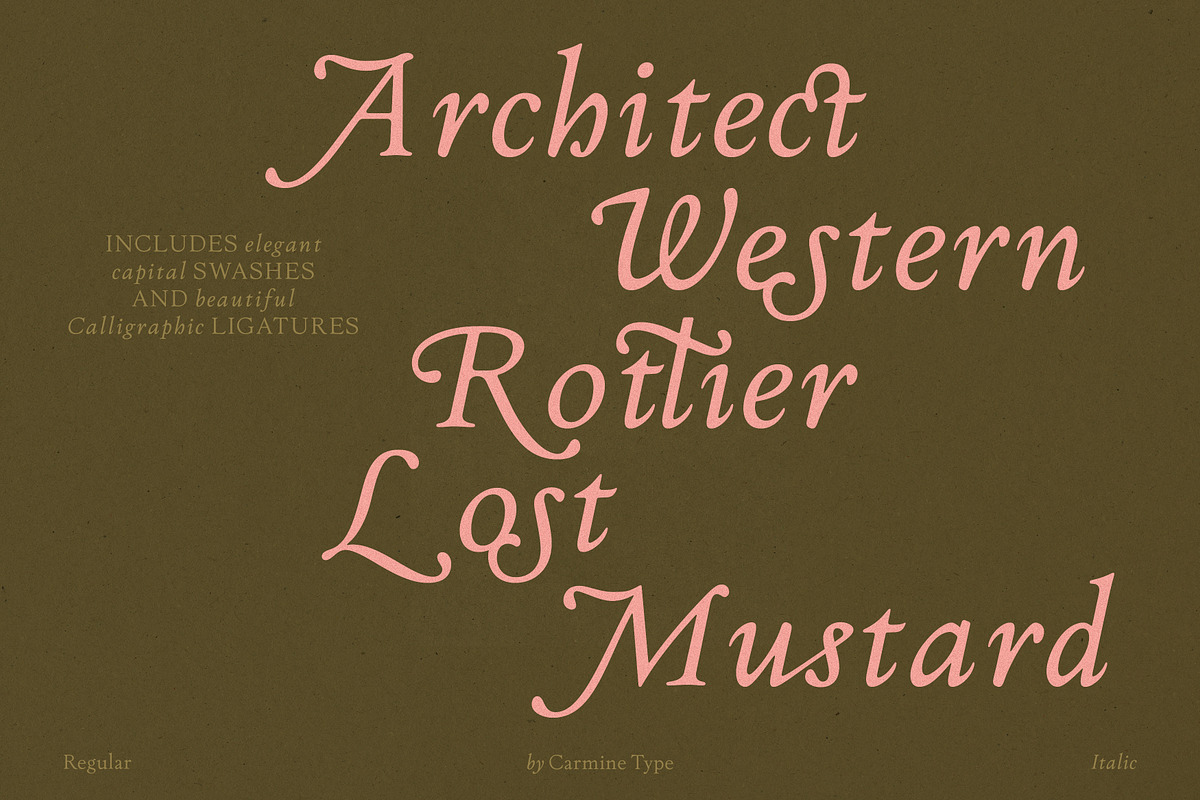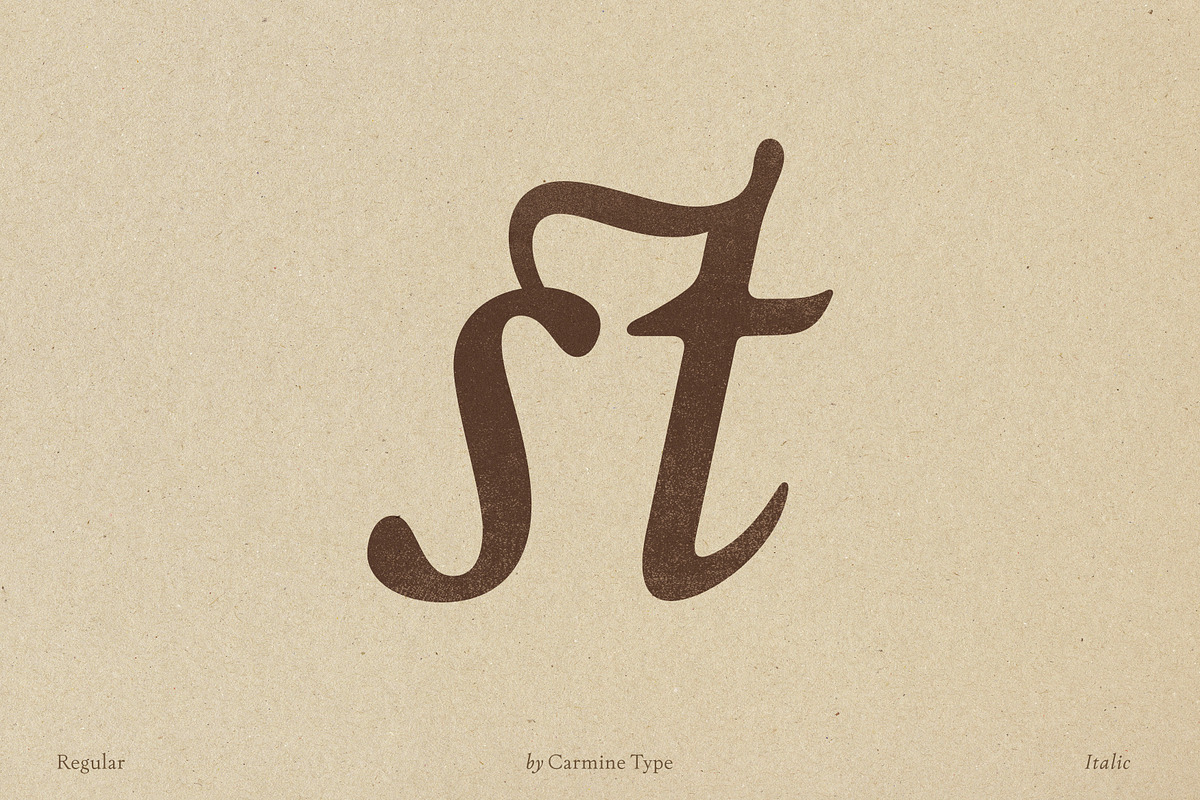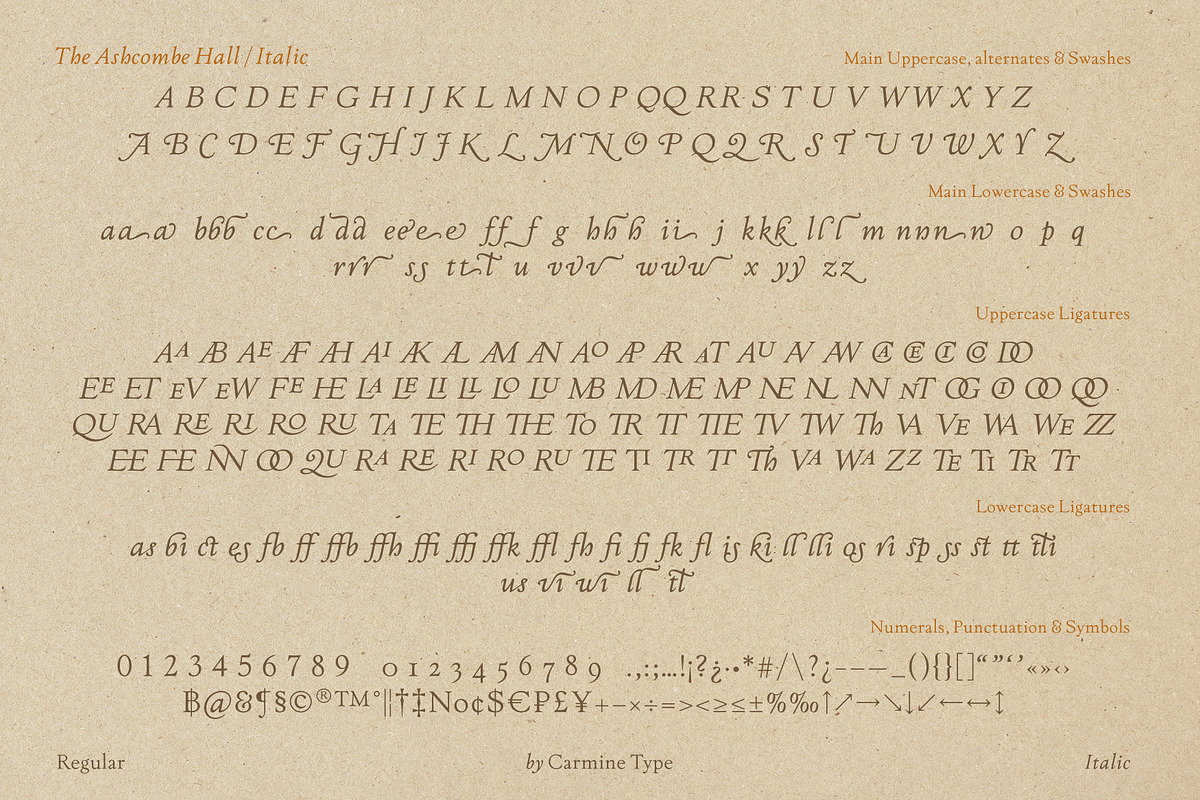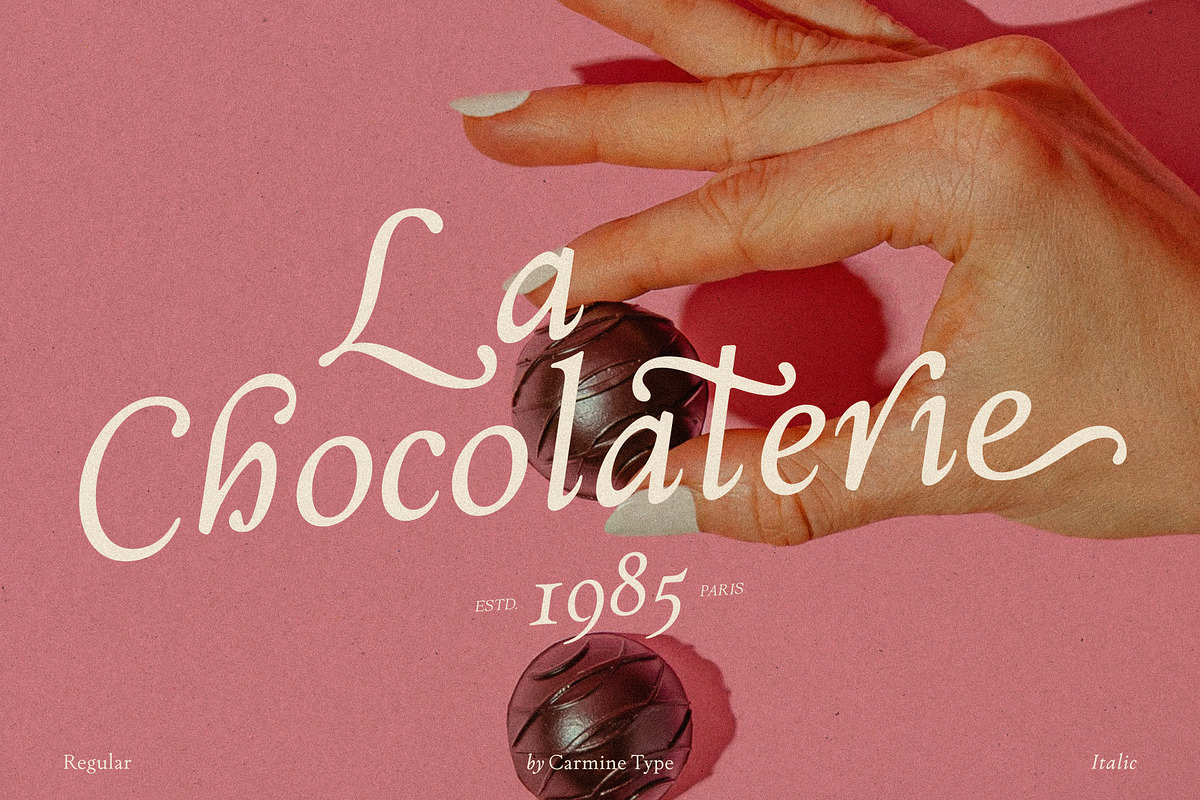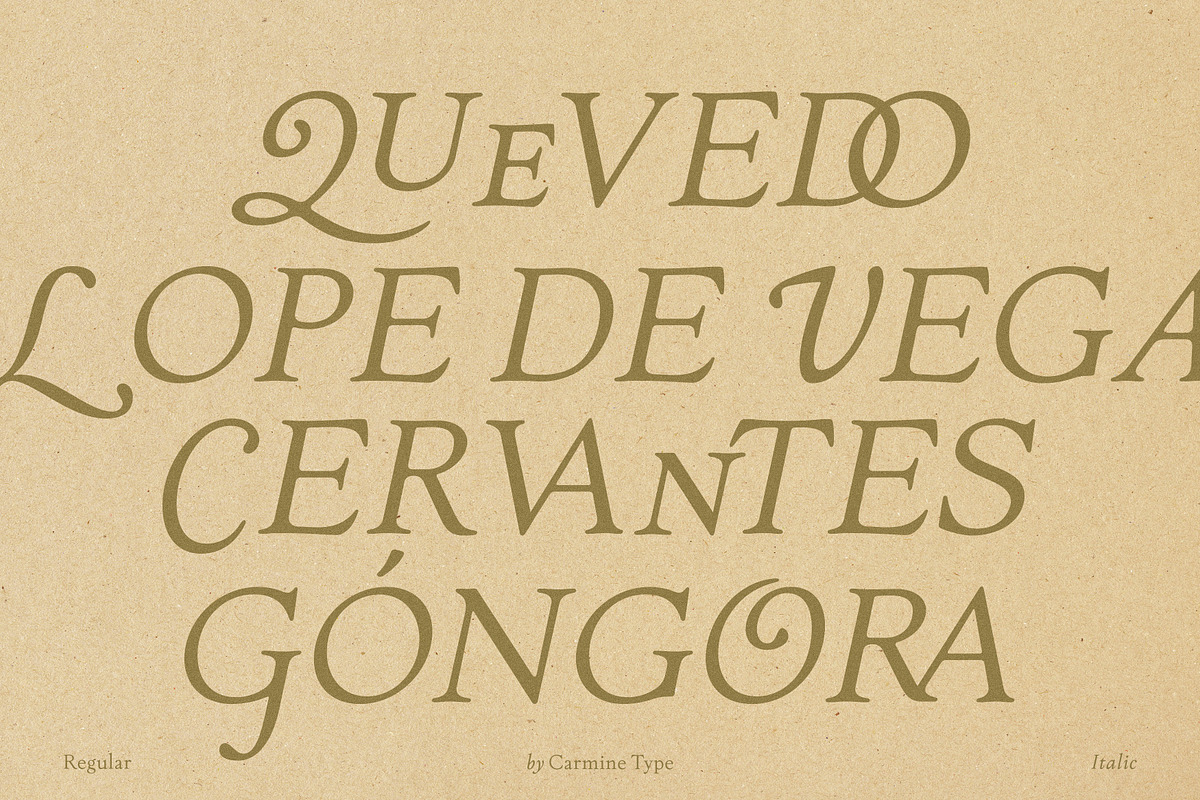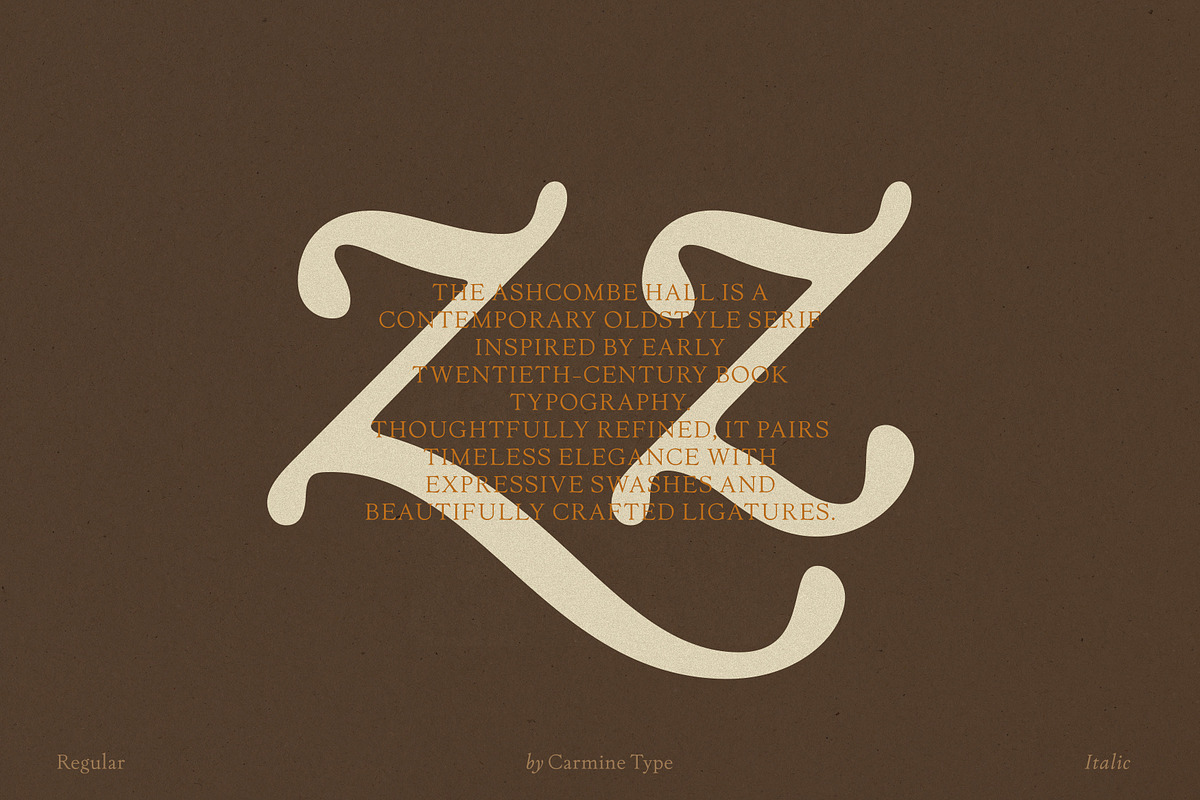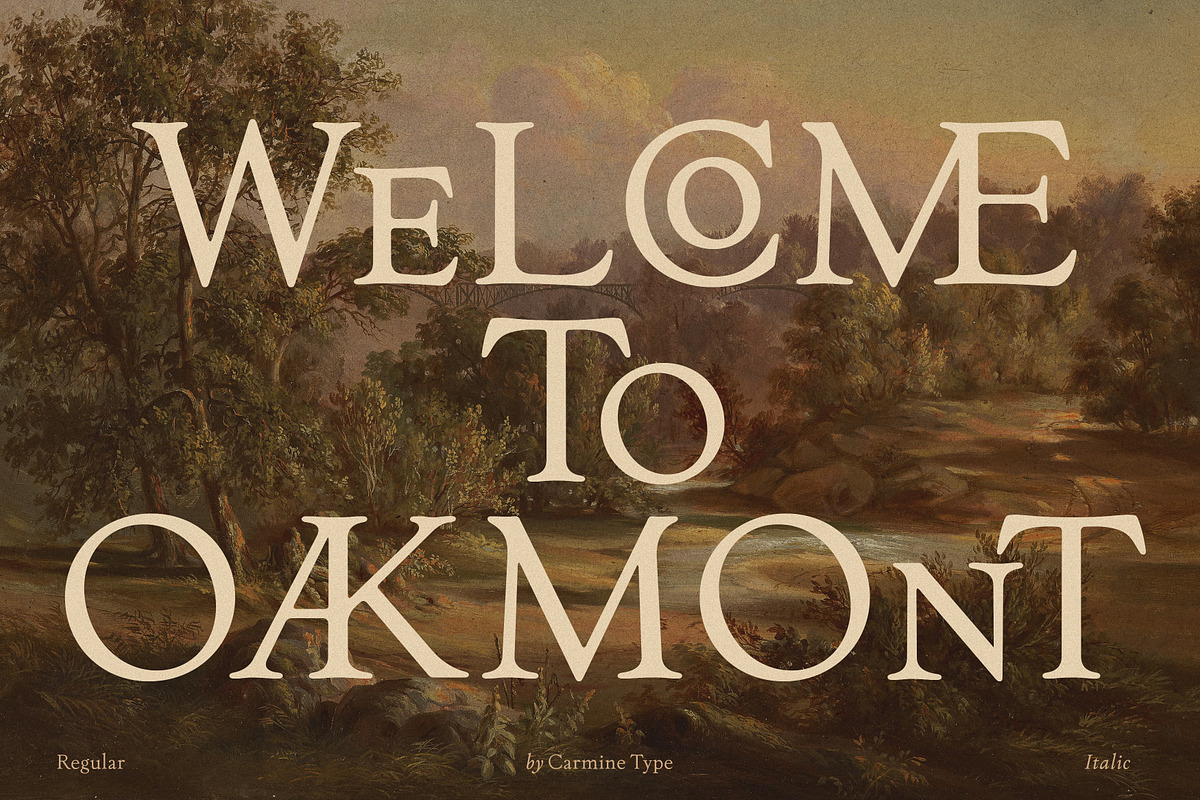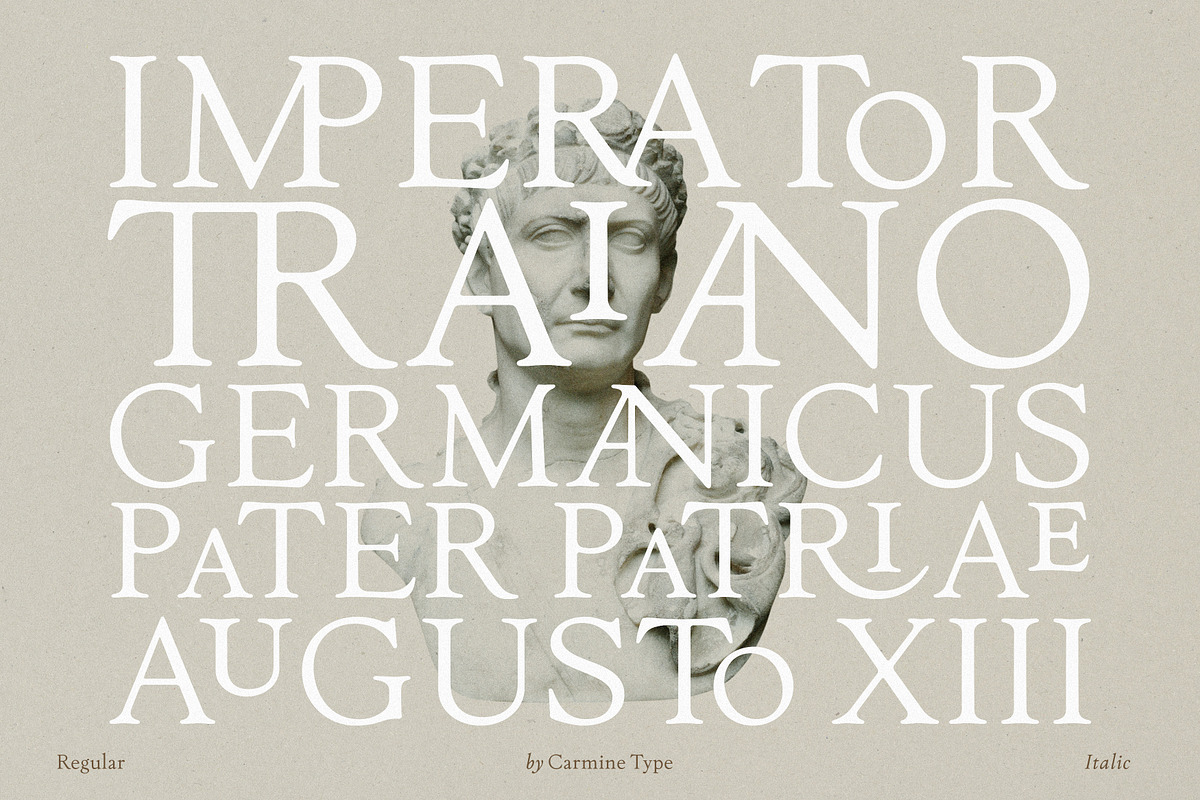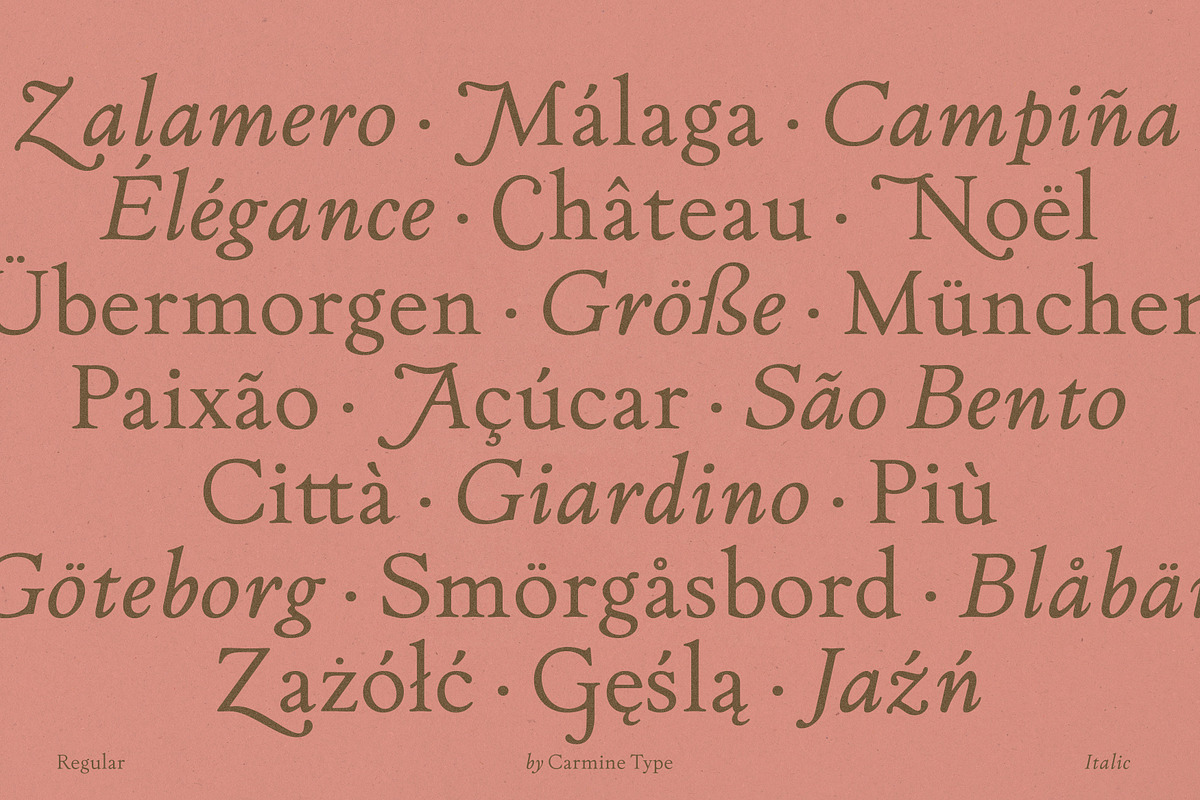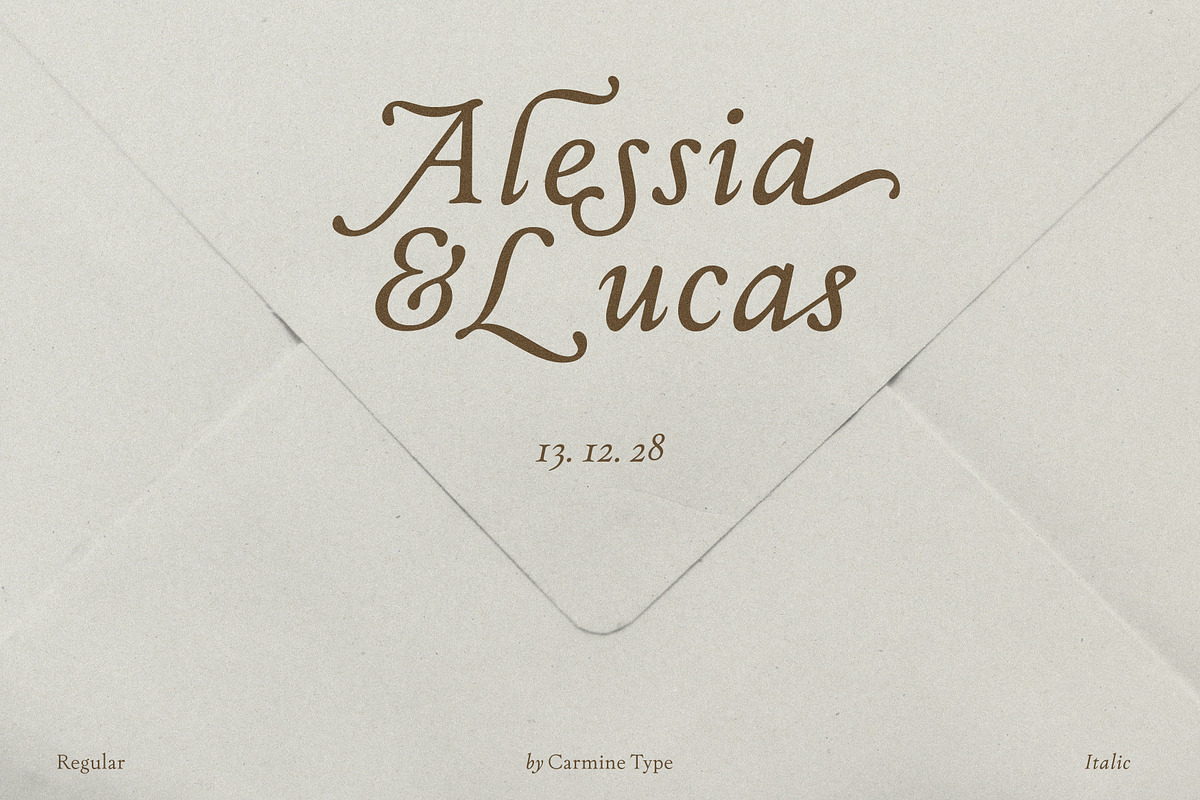
The Ashcombe Hall Oldstyle Serif
The Ashcombe Hall is a contemporary Oldstyle serif inspired by the warmth and elegance of early twentieth-century book typography. Designed with both editorial and branding projects in mind, it combines classic proportions with refined details, making it equally suited to luxury packaging, magazines, visual identities, wedding stationery and more.
One of its defining features is its extensive collection of calligraphic swashes inspired by traditional pen lettering, alternates and handcrafted ligatures, allowing you to create everything from understated layouts to expressive and characterful typography. Each style includes over 100 carefully designed ligatures, with more than 200 across the family, giving you plenty of possibilities to build distinctive wordmarks and beautifully typeset headlines.
The family also includes Oldstyle Figures, bringing a more refined feel to dates, prices, page numbers and editorial compositions, along with fractions, superscripts, subscripts and broad multilingual support.
Created for editorial design, branding and packaging, The Ashcombe Hall combines the quiet elegance of traditional book typography with the flexibility needed for contemporary design.
Included features
Regular & Italic
Calligraphic swashes
Stylistic alternates
Over 200 ligatures across the family
Oldstyle Figures
Fractions, superscripts & subscripts
Western, Central & Eastern European language support